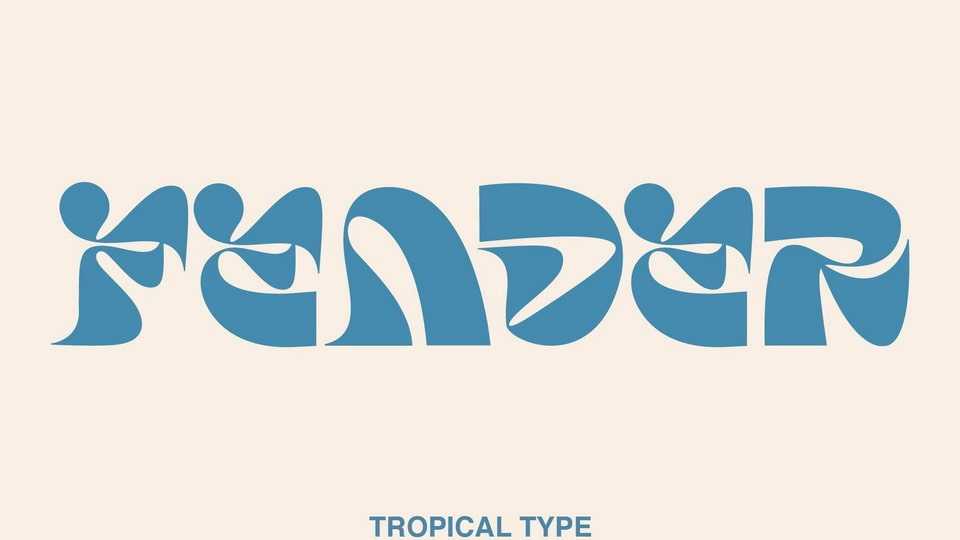
Download Fender font, an experimental display typeface with all sorts of shapes in all sorts of places. With its trippy, psychedelic vibe Fender font is best for groovy band poster, hippy logos and stand out typography.
Designer: Tropical Type